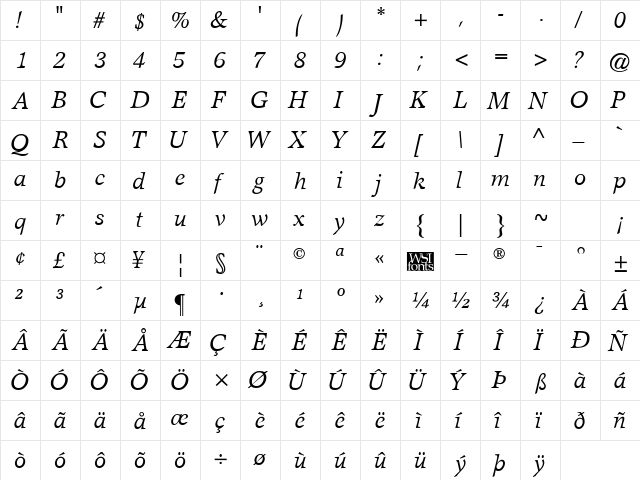
Steward Italic
Design Context for Steward Typeface
Steward offers clean, dependable letterforms without strong stylistic allegiance, making it a practical choice for designers who need flexibility. Its italic angle brings a sense of urgency and motion to the letterforms.
Pro Tip: Use Steward for emphasis, pull quotes, and subheadings where its slanted energy can add rhythm to the layout.